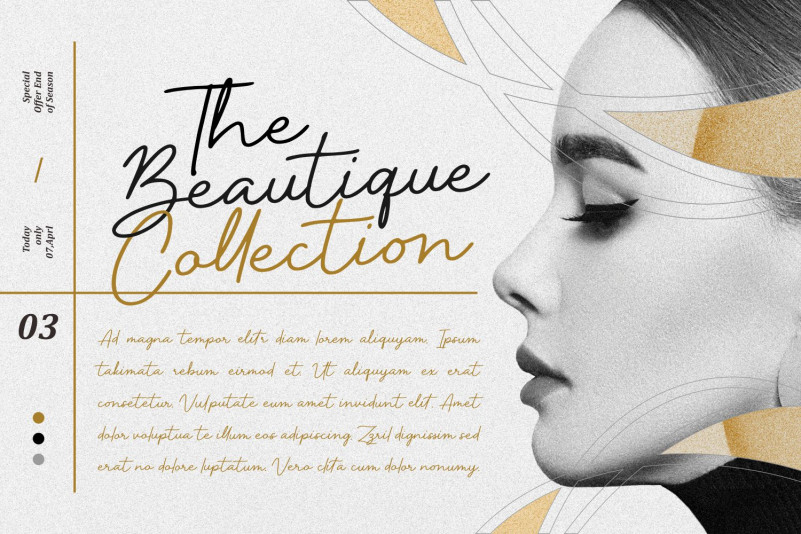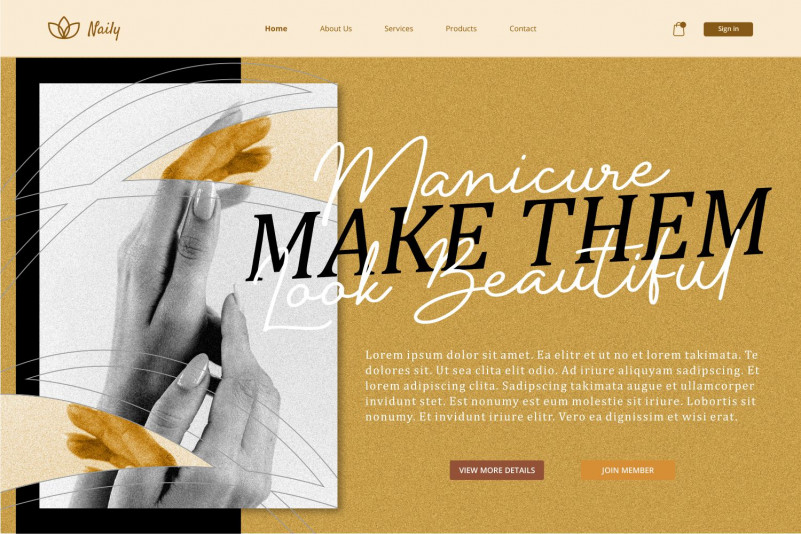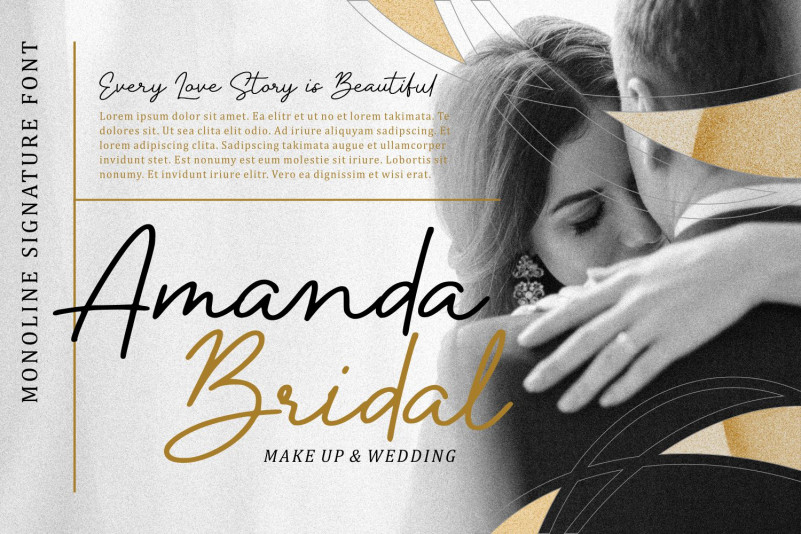
Mandy William Handwritten Font
Is a delicate, elegant and flowing handwritten font. It has beautiful and well balanced characters and as a result, it matches a wide pool of designs.